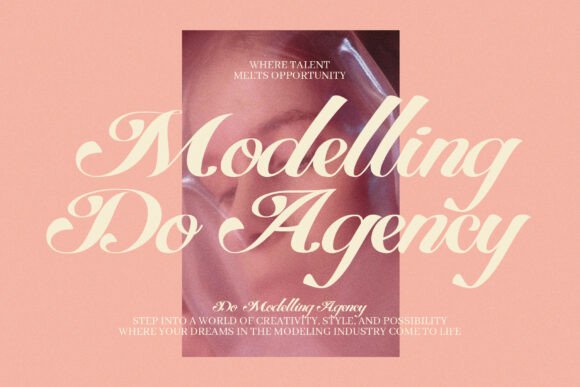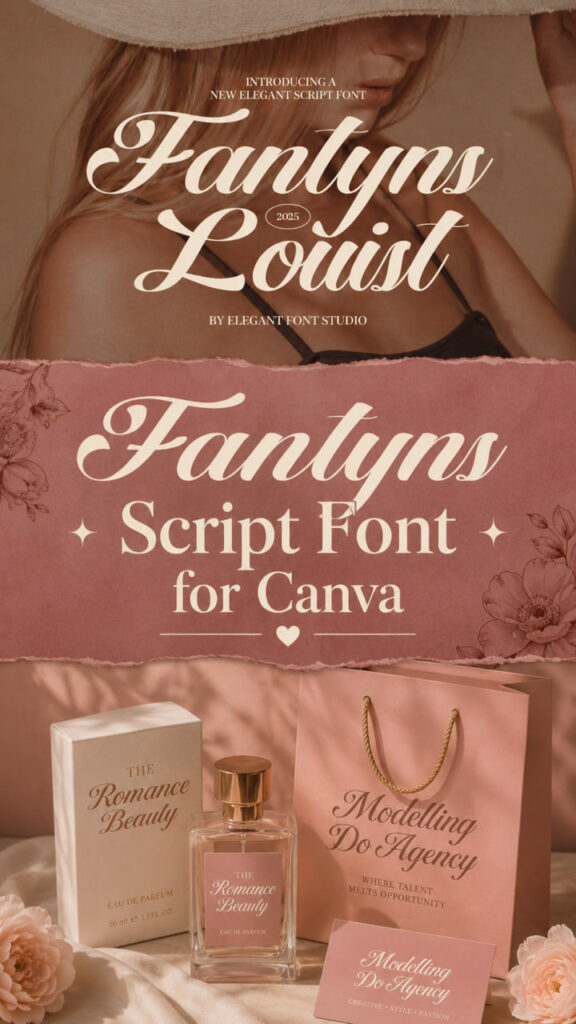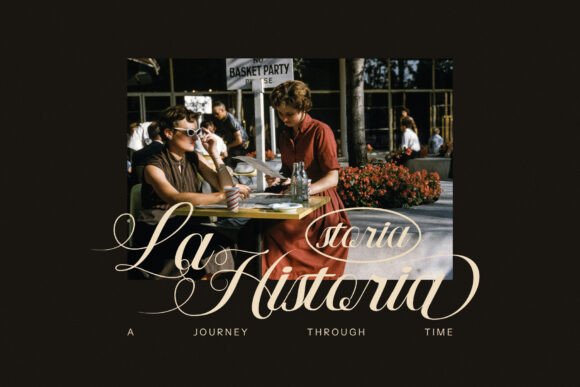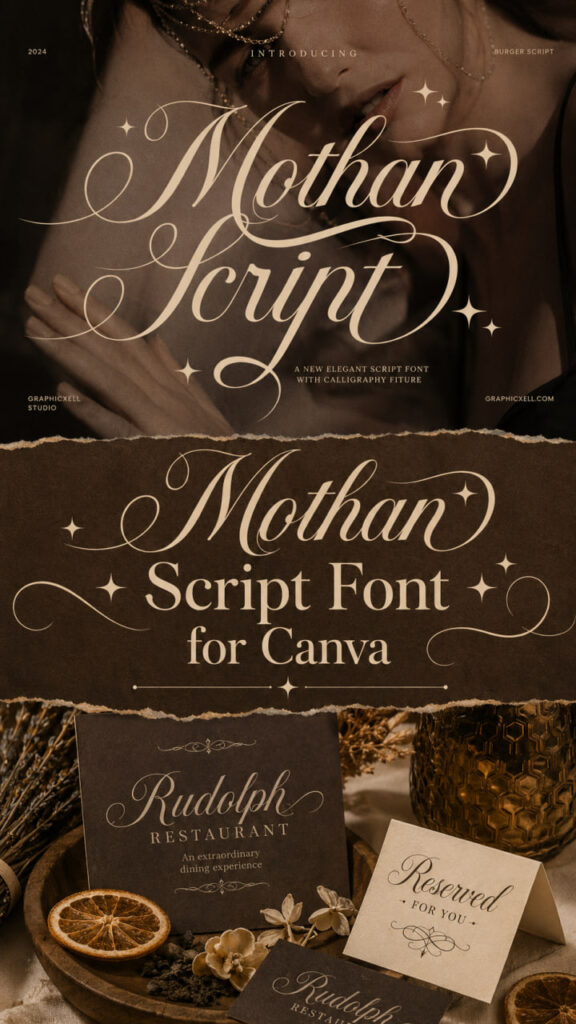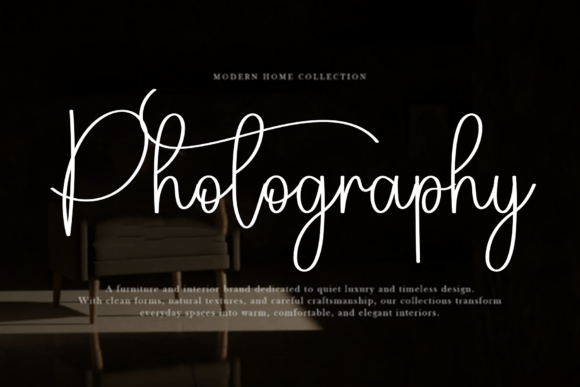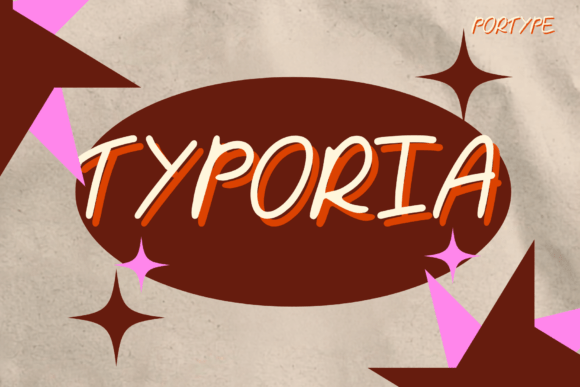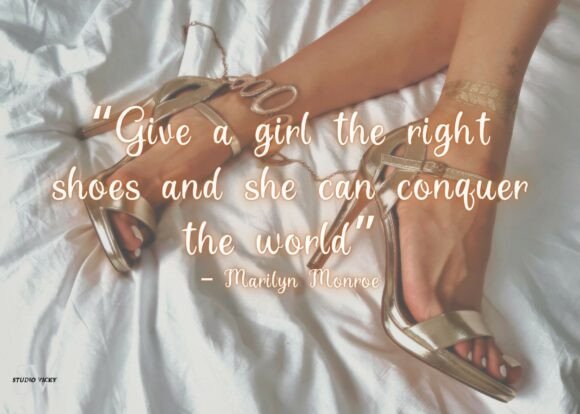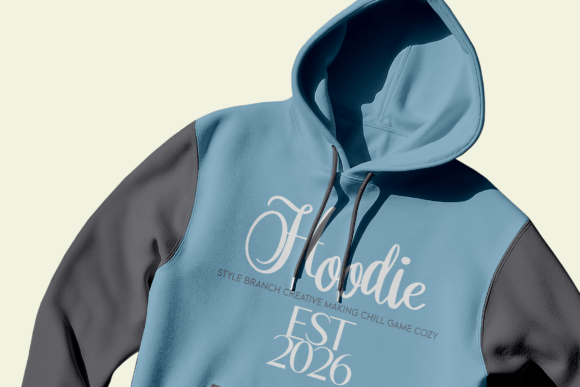
10 Gorgeous Canva Script Fonts You’ll Absolutely Love
Elevating your designs with the perfect Canva Script Fonts is the easiest way to craft stunning layouts you’ll absolutely love, and in this guide, we are sharing 10 gorgeous selections to inspire your next creative masterpiece.
Orchidia Font: Elegance Written with Natural Flow
Let your designs whisper with the quiet luxury of Orchidia, an exquisitely delicate handwritten masterpiece that captures the fluid grace of genuine ink-on-paper calligraphy. Striking a perfect balance between organic, hand-drawn warmth and high-end editorial polish, this stunning selection stands out as a remarkably versatile Script Font. Its silky-smooth curves and gentle, rhythmic flow give every word an authentic signature feel, instantly elevating feminine designs, boutique branding, and luxury cosmetics packaging.
This elegant typeface is beautifully optimized to streamline your creative process, performing flawlessly as a go-to Canva resource for bloggers, designers, and small business owners who need to design on the fly. Whether you are shaping romantic wedding stationery suites, styling chic Instagram quotes, or designing minimalist product labels, Orchidia ensures your typography remains highly readable while exuding effortless sophistication. Combine this flowing style with clean sans-serifs and soft, earthy color palettes to drape your next visual project in a cloak of delicate, timeless sophistication.
Fantyns Font: High-End Calligraphy with Artistic Swashes
Breathe the vibrant pulse of high-end calligraphy into your next project with Fantyns, a stunningly modern typeface designed to balance timeless grace with contemporary charm. Representing a brilliant leap forward for expressive Script Font designs, this hand-drawn masterpiece features flowing curves and dramatic stylistic alternates that make every character feel uniquely customized. Its luxurious weight and organic rhythm instantly add a layer of premium, bespoke beauty to wedding stationery suites, fashion lookbooks, and high-end lifestyle branding.
This sophisticated typeface is fully optimized to keep your workflow fast and effortless, functioning beautifully as an essential Canva asset for content creators, boutique owners, and freelance designers alike. Whether you are typing out cinematic headlines, shaping romantic logos, or detailing custom social media banners, its rich collection of ligatures and decorative swirls ensures your layout remains highly legible while looking effortlessly polished. Bring Fantyns into your creative toolkit today to watch your text dance across the page with an unforgettable, artistic flourish.
Mothan Font: A Graceful Calligraphy Touch for Script Fonts Enthusiasts
Discover the breathtaking art of modern calligraphy with Mothan, an exquisitely refined typeface that captures the sophistication of handcrafted lettering. Boasting elegant, sweeping strokes, seamless connections, and a wealth of stunning alternate characters, this graceful selection makes an absolutely beautiful addition to your curated library of script fonts.
It shines brilliantly as an essential wedding asset, perfect for designing romantic save-the-dates, upscale marriage invitations, and delicate thank-you cards that set a luxurious tone for an unforgettable celebration. Furthermore, its smooth digital adaptability makes it a highly popular Canva option, allowing bloggers, designers, and event planners to effortlessly elevate social media graphics, branding logos, and chic event stationery on any platform.
The Disma Font: Classy Calligraphy with Smooth Curves
Unveil a new standard of sophisticated styling with The Disma, an exceptionally classy typeface designed to bring high-end charm and polished grace to any canvas. Characterized by its smooth curves and flowing, hand-drawn letters, this beautiful selection stands out as an indispensable addition to your library of premium Script Fonts. It gives your words a fresh, luxury feel while ensuring perfect readability, making it a spectacular tool for high-profile branding projects.
This gorgeous wedding asset is fully optimized to streamline your design workflow, serving as a highly accessible Canva resource for bloggers, boutique owners, and creative planners alike. Whether you are typing out romantic marriage invitations, designing chic boutique logos, detailing corporate business cards, or shaping eye-catching digital ads, its rich collection of alternate calligraphy styles and custom ligatures ensures your layouts remain entirely unique, giving you the ultimate artistic freedom to craft bespoke visual projects that capture hearts and stand the test of time.
Paris Hamilton Font: A Sophisticated Signature with Natural Strokes
Redefine personal luxury on your canvas with Paris Hamilton, an effortlessly chic signature typeface modeled after genuine, fluid hand strokes. Exuding a sense of high-fashion allure and editorial poise, this stunning selection represents a highly distinguished milestone for your premium library of Script Fonts. It seamlessly translates the raw beauty of custom ink-written scripts into a clean digital format, making it an indispensable asset for styling upscale boutique branding, cinematic headlines, and high-fashion editorial layouts.